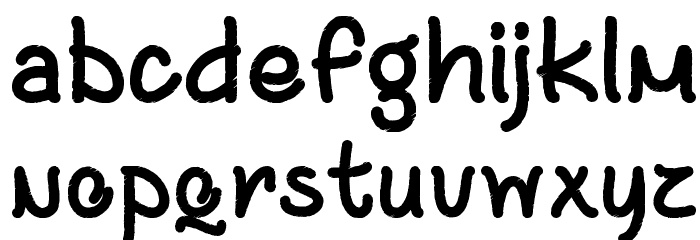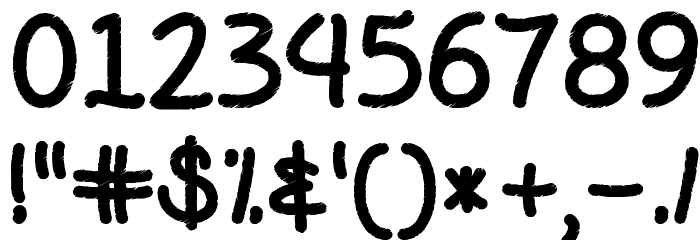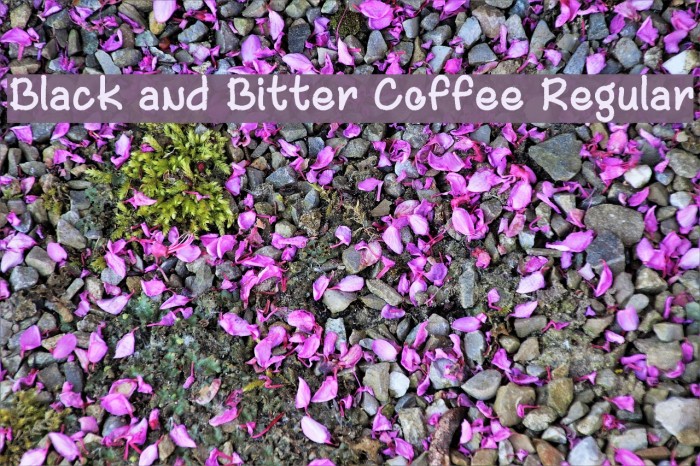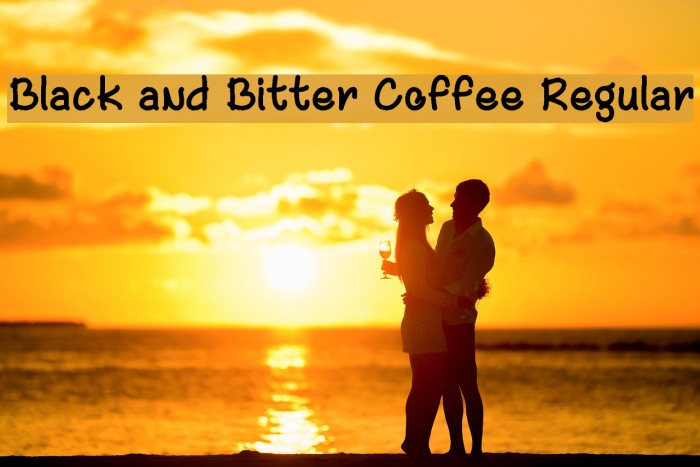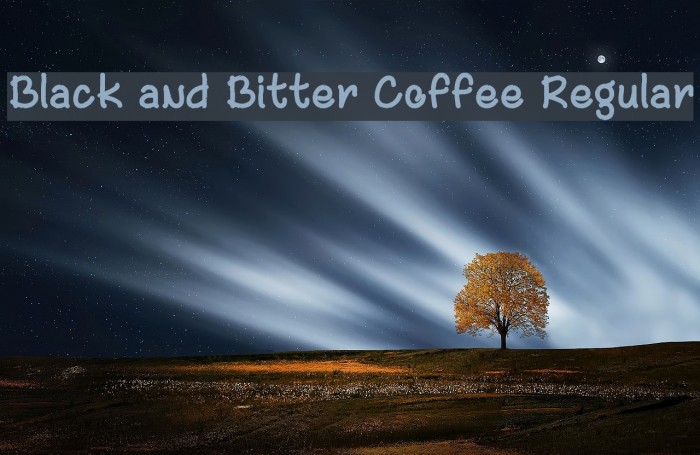
Black and Bitter Coffee Regular Font
This font features a playful and casual handwritten style, characterized by its bold and slightly irregular strokes. The letters have a textured appearance, giving them a dynamic and lively feel. The uppercase and lowercase letters maintain a consistent style, with rounded edges and a slightly uneven baseline that adds to the font's charm. The numerals and special characters follow the same design principles, ensuring a cohesive look across all glyphs. This font is ideal for projects that require a personal touch or a sense of informality.
A bold, playful handwritten font with textured strokes and a casual vibe.
- Proposed Projects: Great for greeting cards, children's books, playful branding, and social media graphics.
- Overall Style: Casual, Playful
- Use Case: Headlines, Logos, Informal Text